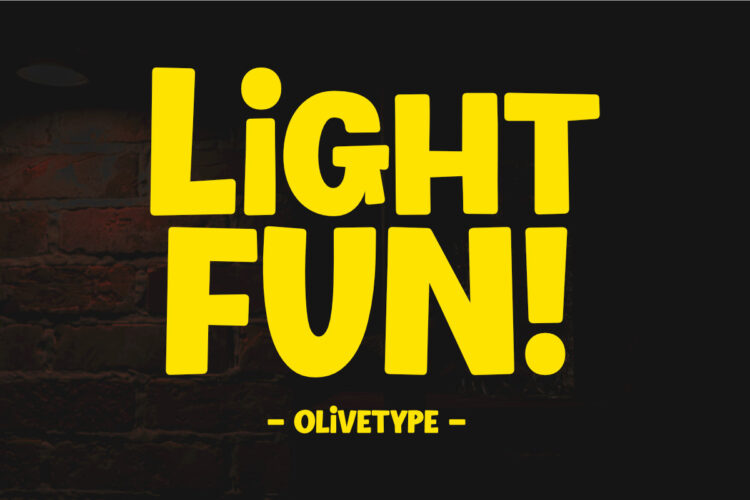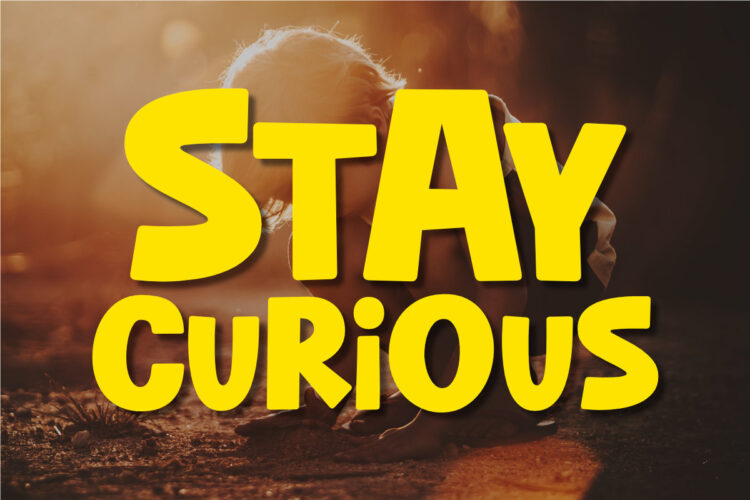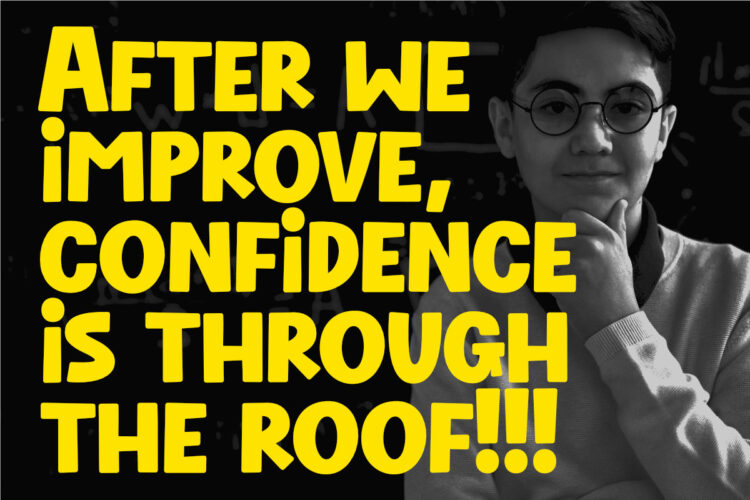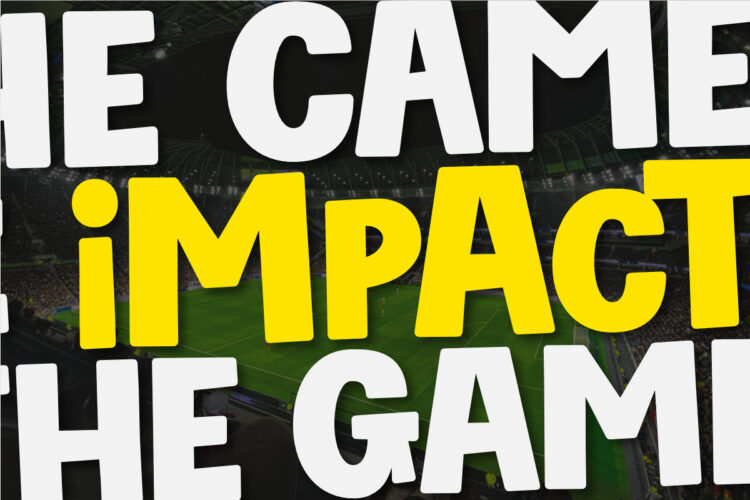
Inspired by pop art and handmade touch, Light Fun is a bold display font that gives off a “light” feeling. Light Fun is playful and fun, but still serious enough for a corporate environment. This typeface is perfect for use in posters, branding, and product packaging. It screams creativity, suitable for a logo, a poster, a product packaging project, and more.